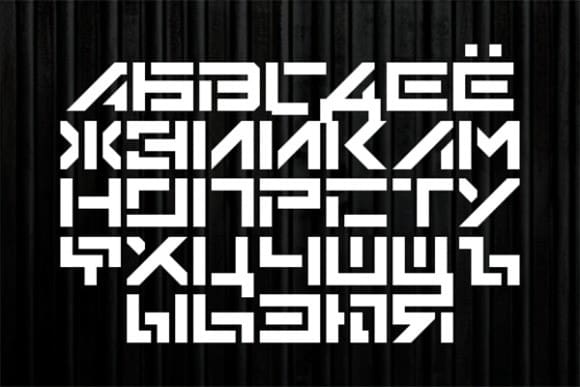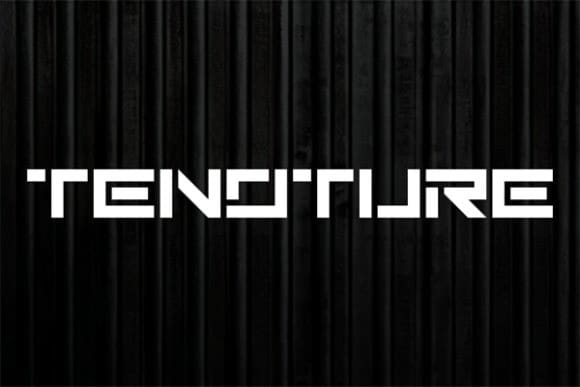
Tenoture Futuristic Font
Tenoture Futuristic Font, this font is great for logos, movies, games, and music. This is a fairly simple but effective display font, it is suitable for both general futuristic use and military applications thanks to its simplicity and stencil. It doesn’t matter how you use it, because this typeface will never get old.